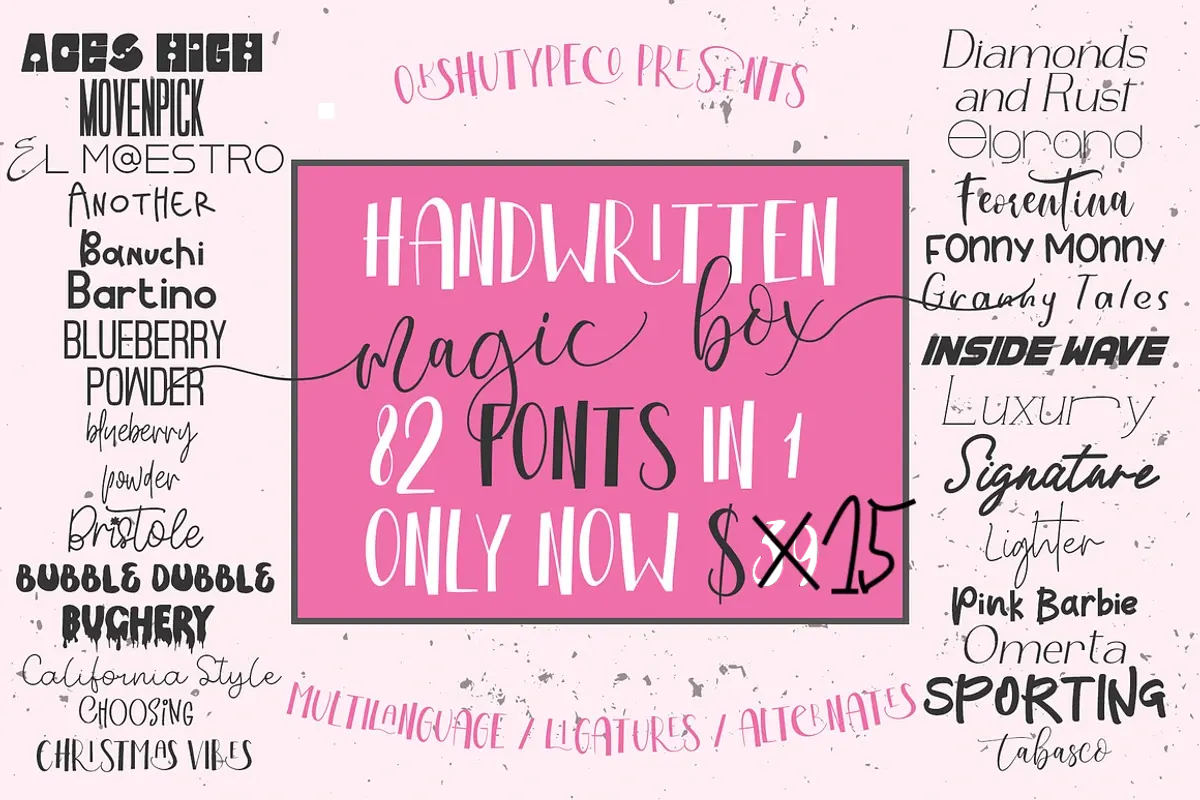
Unique 82in1 Handwritten font Free Download
Unique 82in1 Handwritten Font Free Download is a versatile collection of 82 different handwritten fonts, offering a wide variety of styles and personalities for any project. From casual scripts to elegant calligraphy, this font bundle is perfect for branding, invitations, social media graphics, and other creative designs that require a personal, handcrafted feel.
Unique 82in1 Handwritten Font Free Download provides a vast selection of handwritten fonts that give you the freedom to choose the perfect style for your project. Whether you're designing a whimsical greeting card, a personal logo, or creating custom packaging, this font collection offers endless possibilities. Download it today and enhance your designs with the authentic charm of handwritten typography!